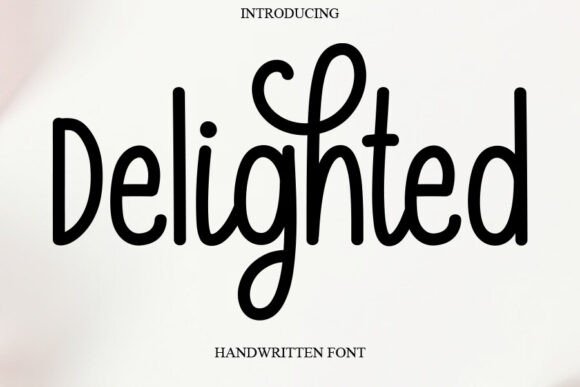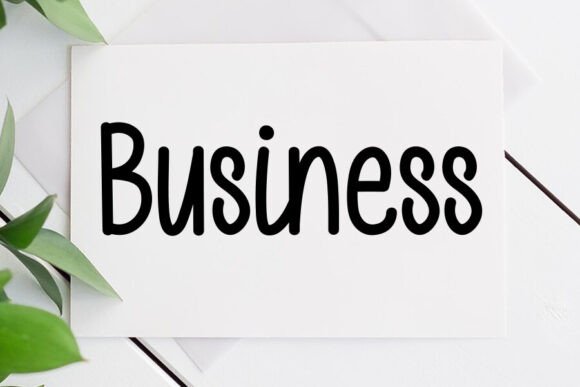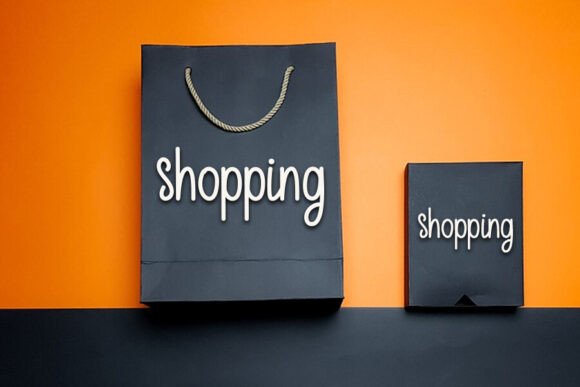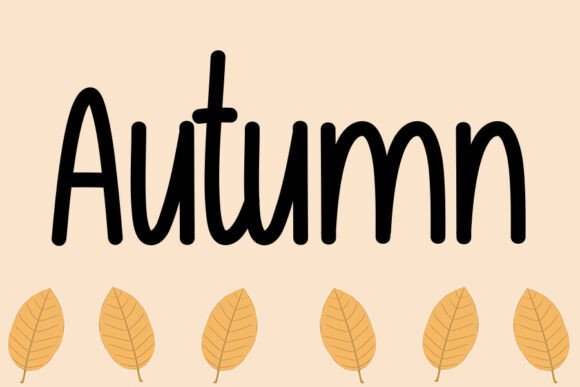
Delighted Font: Cute Handwritten Typography for Cricut & DIY Projects!
About the Delighted Font
The wait is over! The incredible Delighted Font is now available for your design toolkit. Delighted is a sweet and cursive handwritten font. This gentle font will look gorgeous on a variety of design ideas. It will add a joyful and romantic touch to each of your projects! Perfectly fit for branding, logo, wedding things, greeting cards, fashion, lookbook, marketing promotion, and any time you want your design to look fancy and elegant but still casual.
Delighted’s playful, yet elegant, cursive style shines in headlines, short text blocks on invitations or packaging, and social media graphics. It’s ideal for brands focused on sweetness, romance, or a handcrafted aesthetic. However, its delicate nature makes it unsuitable for body text or UI elements where readability is paramount.
Pair Delighted with a clean sans-serif like Lato for a modern contrast, or a classic serif like Garamond for a more timeless feel. A geometric sans-serif such as Montserrat could provide a contemporary edge, while a simple script font like Great Vibes might enhance the handwritten feel, depending on desired emphasis.
Avoid using Delighted in contexts requiring high readability, such as lengthy paragraphs or website copy. Its charming, slightly informal personality is best suited for projects that prioritize visual appeal over extensive textual information.